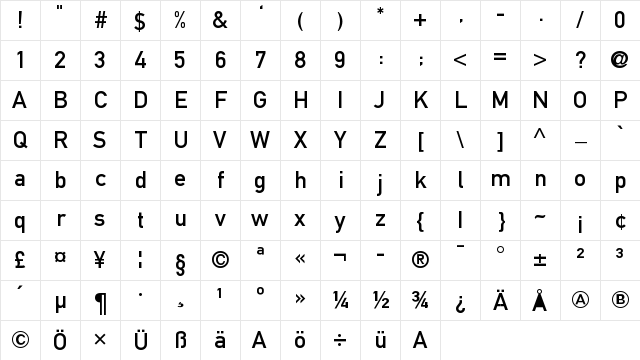
DIN 1451 Mittelschrift Alt Regular
Complete DIN 1451 Mittelschrift Alt Regular glyph index. Displaying only characters natively supported by DIN 1451 Mittelschrift Alt Regular font.
Design Context for DIN 1451 Mittelschrift Alt
DIN 1451 Mittelschrift Alt is a composed and adaptable typeface that performs quietly and consistently across a wide range of design contexts.